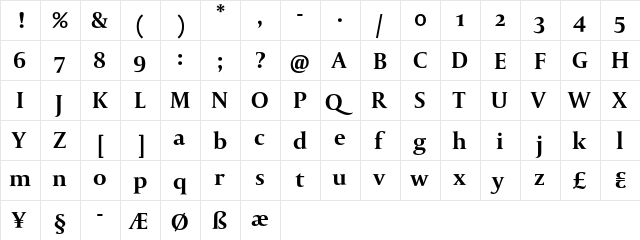
Capitolium BoldRomanOsf Font Preview
Capitolium BoldRomanOsf
Design Context for Capitolium Typeface
Capitolium is a composed and adaptable typeface that performs quietly and consistently across a wide range of design contexts. Its bold stroke weight gives it real presence on the page.